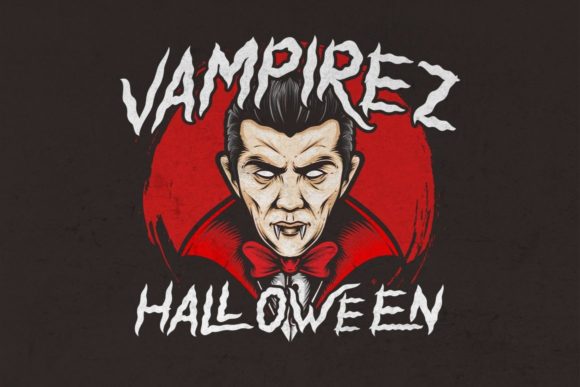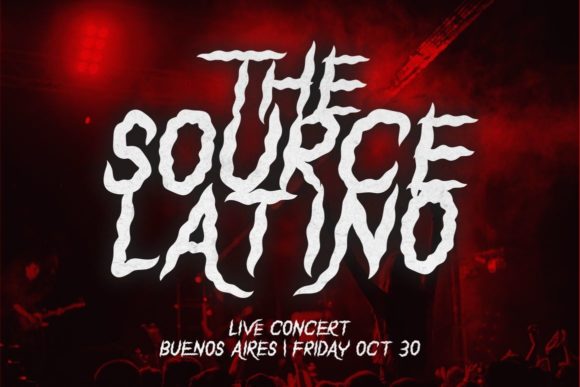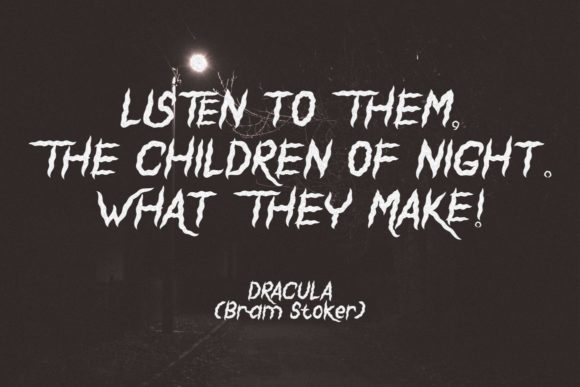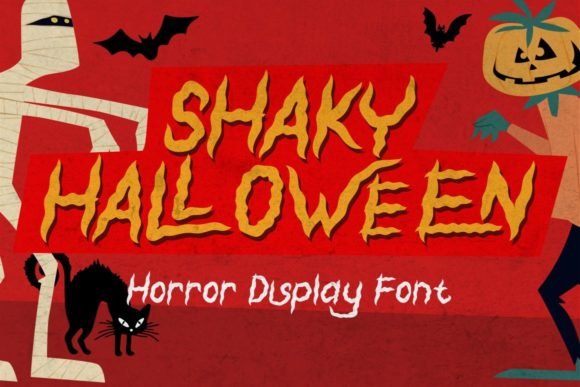
Introduction to Shaky Halloween Font
Shaky Halloween – Horror Display Font inspired by movie titles and some horror logos.
The impression of horror is highly emphasized, but the alternate character of this font that curves at the beginning and end of the letter makes this font very suitable for logos or posters Shaky Halloween would be perfect for logos, titles, logotypes, covers, headlines, apparel, comics, cover books, cards, posters, or anything that requires a horror or scary look.